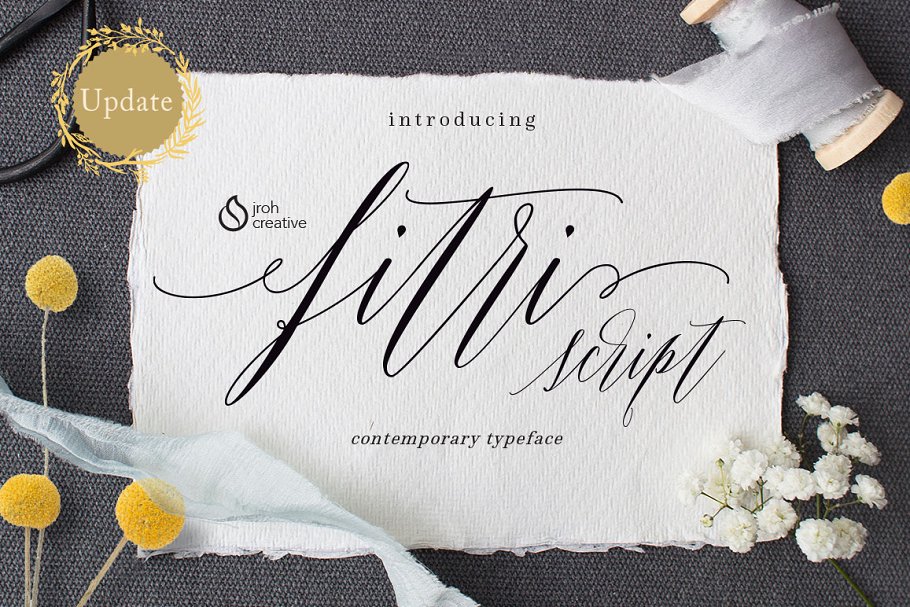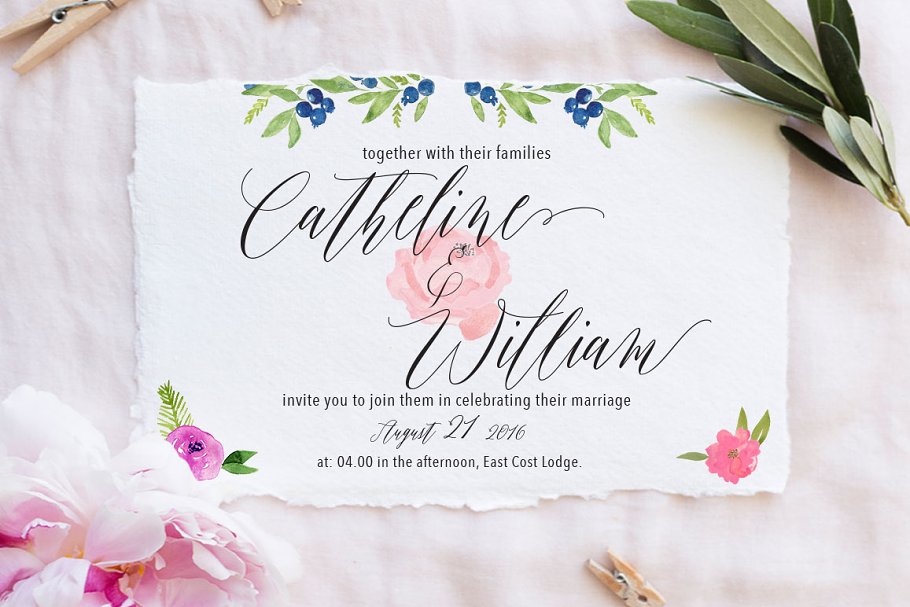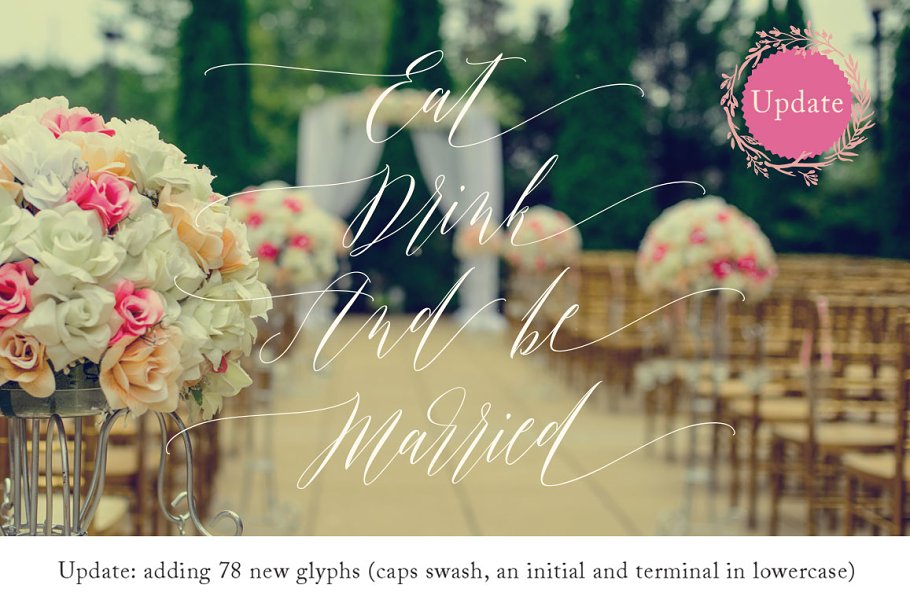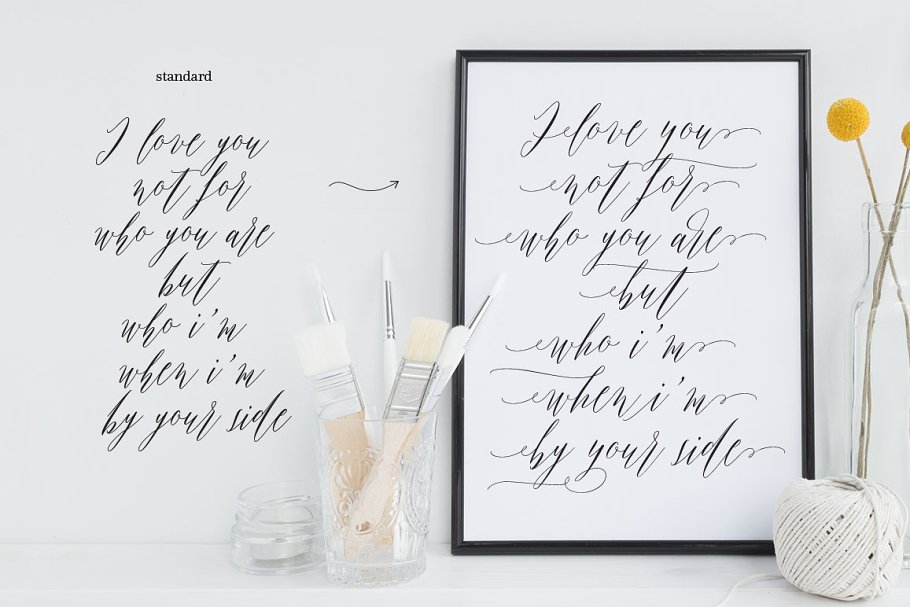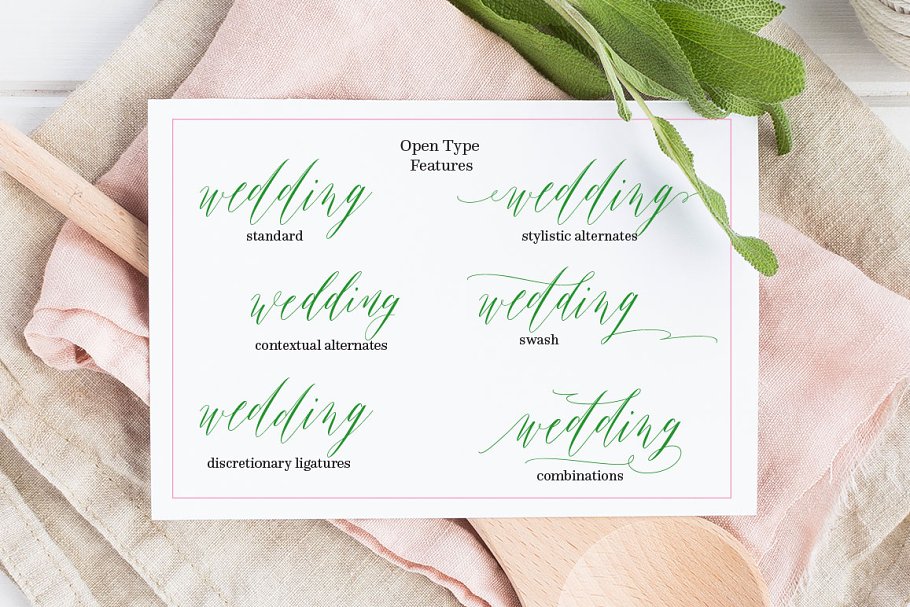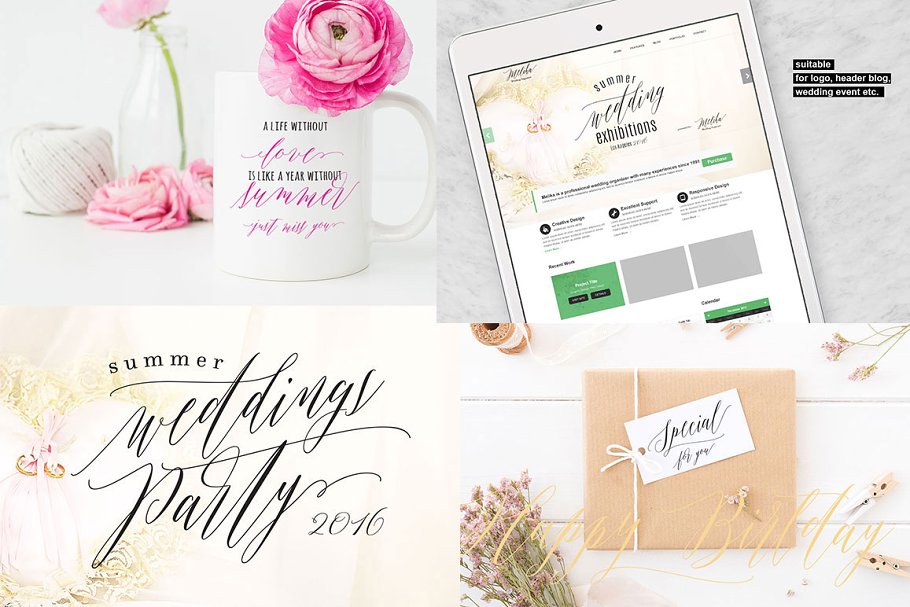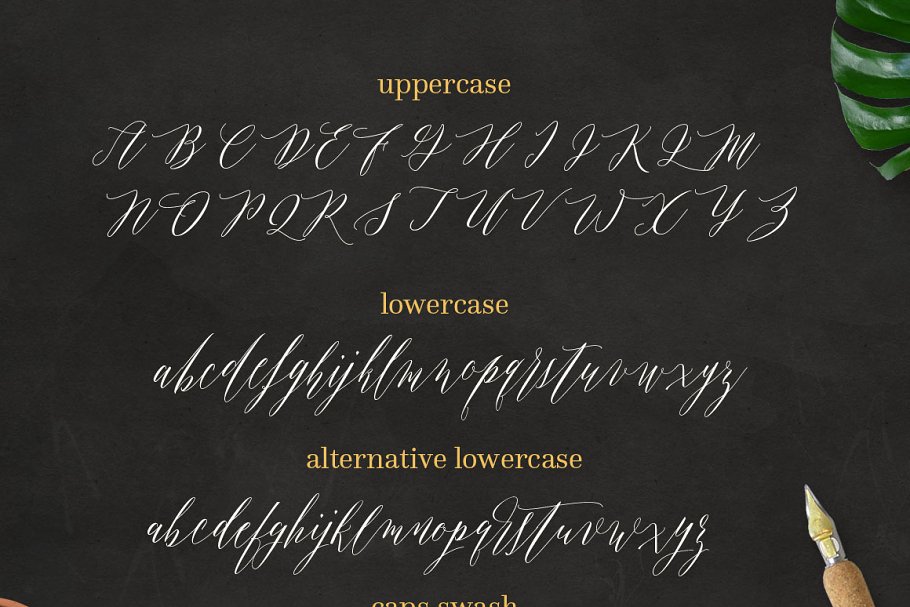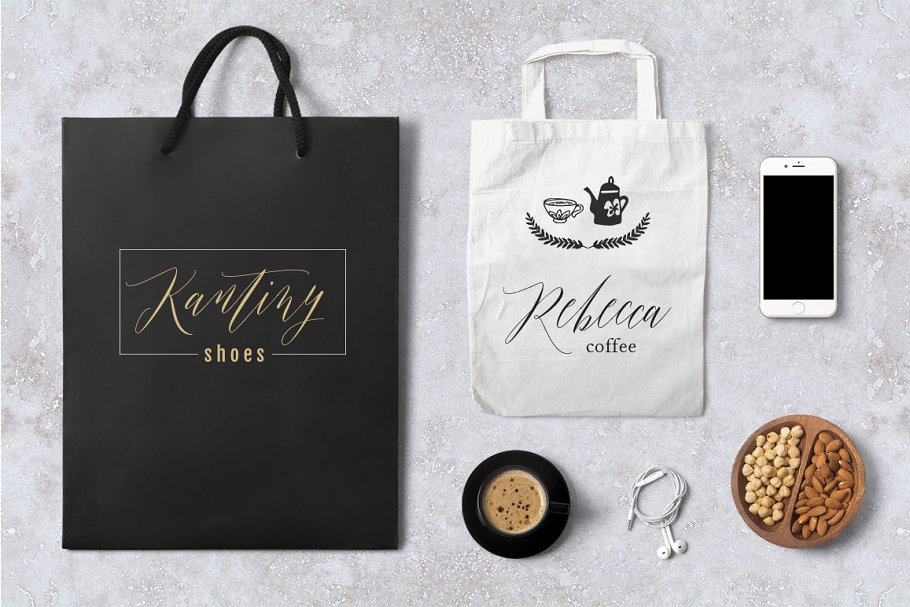
About the Fitri Script Font
Hi all, introduce my new font Fitri Script is a unique blend of classic and modern font, imperfect style ups and downs, like a dance letters, smooth, clean and simple, Fitri Script font perfect for wedding, event, invitation, escort card, table number, header menus, display, logos, slider blog, custom address, stamps, packaging, greeting card, etc
Fitri Script comes with a complete set of standard characters, eastern diacritic symbols, consist 591 glyphs in total, and 368 alternative characters as OpenType features to play with, The alternative characters were divided into several OpenType features such as Ligature, Contextual Alternates, and Stylistic Sets
You can create an attractive message by using the alternate characters in your design, The features is:Discretionary ligaturesContextual alternateSwashinitial and terminalStylistic alternatesPUA encoded, How to Access OpenType Features?In Adobe Illustrator or InDesign; simply open Window Type Glyphs, it will show the Glyphs panel